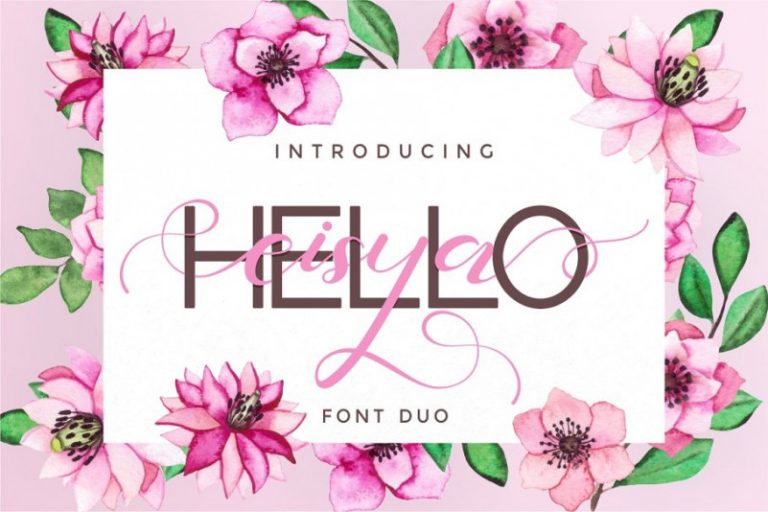
Hello Eisya Font Duo
This font is ideal for branding and decorate your any project, are perfect for wedding invitation or your blog. Introducing Hello Eisya Font. Hello Eisya is a beautiful modern sans and script typeface. a perfect pair, can created to mix together. Hello Eisya perfect for branding, wedding invite and card, elegant logo, poster, packaging, stationery, website, and many more.